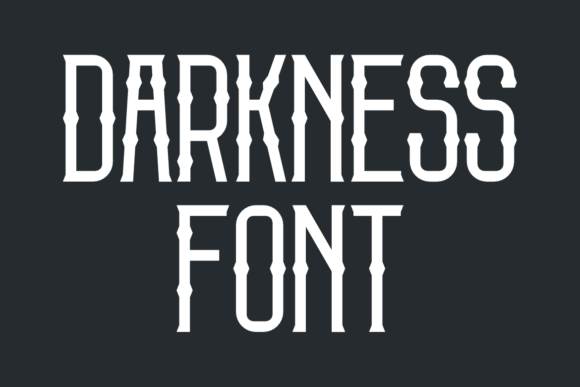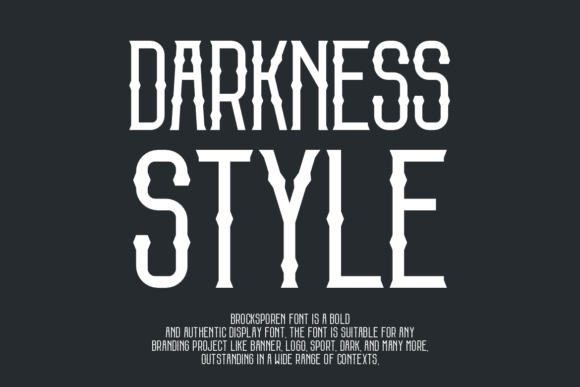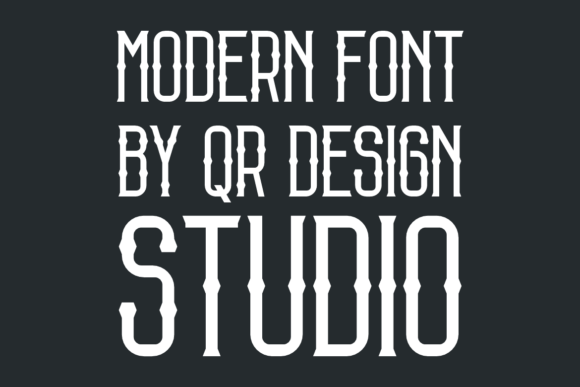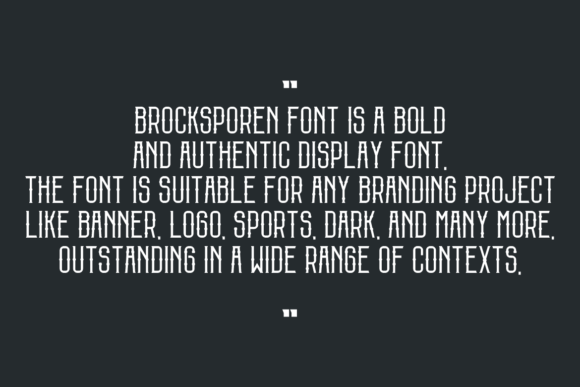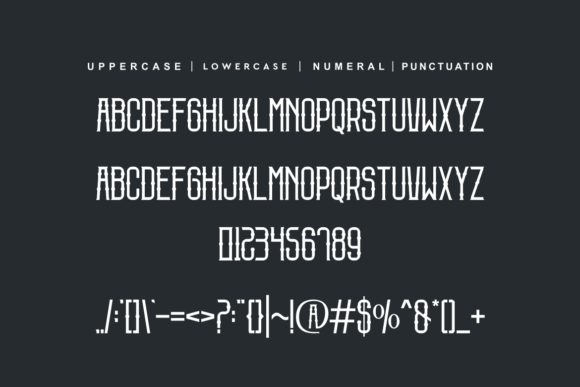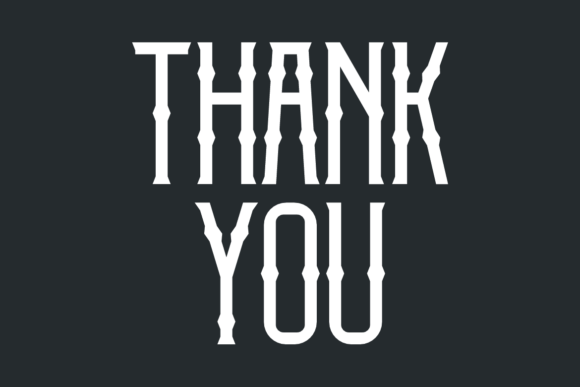
Brocksporen Font: Elevate Your Designs with a Cool and Stylish Display Font
Brocksporen is a cool and stylish display font with a unique twist, masterfully designed to become a true favorite among designers and crafters. This font has the potential to bring each of your creative ideas to the highest level, making it an essential addition to your typography collection.
What Makes Brocksporen Font Stand Out?
Brocksporen font boasts a distinctive and eye-catching design that sets it apart from other fonts. Its unique twist adds a touch of personality to any design project, making it perfect for creative endeavors that require a stylish and modern look. Whether you’re working on a logo, branding materials, or marketing collateral, Brocksporen font is sure to make a lasting impression.
Key Features of Brocksporen Font
- Unique Design: Brocksporen font features a one-of-a-kind design that adds a touch of elegance and sophistication to any project.
- Display Font: This font is specifically designed for display purposes, making it perfect for headlines, titles, and other attention-grabbing elements.
- Cool and Stylish: Brocksporen font exudes a cool and stylish vibe, making it ideal for designs that require a modern and trendy look.
- Versatile: This font can be used in a variety of design projects, from logos and branding materials to marketing collateral and packaging.
Benefits of Using Brocksporen Font
Using Brocksporen font in your design projects offers numerous benefits, including:
- Enhanced Visual Appeal: Brocksporen font adds a touch of elegance and sophistication to any design project, making it more visually appealing.
- Improved Brand Identity: This font can help you establish a strong brand identity that sets you apart from the competition.
- Increased Engagement: The unique and stylish design of Brocksporen font is sure to grab attention and engage your audience.
- Time-Saving: With Brocksporen font, you can create professional-looking designs in no time, saving you time and effort.
Who Can Benefit from Brocksporen Font?
Brocksporen font is perfect for:
- Graphic Designers: This font is a must-have for graphic designers who want to add a touch of elegance and sophistication to their designs.
- Crafters: Crafters who want to create unique and stylish designs will love Brocksporen font.
- Marketers: Marketers can use Brocksporen font to create attention-grabbing marketing collateral that engages their audience.
- Small Business Owners: Small business owners can use Brocksporen font to establish a strong brand identity and create professional-looking designs.
Brocksporen font is a cool and stylish display font with a unique twist, perfect for designers and crafters who want to elevate their designs. With its distinctive design, versatility, and ease of use, Brocksporen font is an essential addition to any typography collection. Whether you’re working on a logo, branding materials, or marketing collateral, Brocksporen font is sure to bring your creative ideas to the highest level.